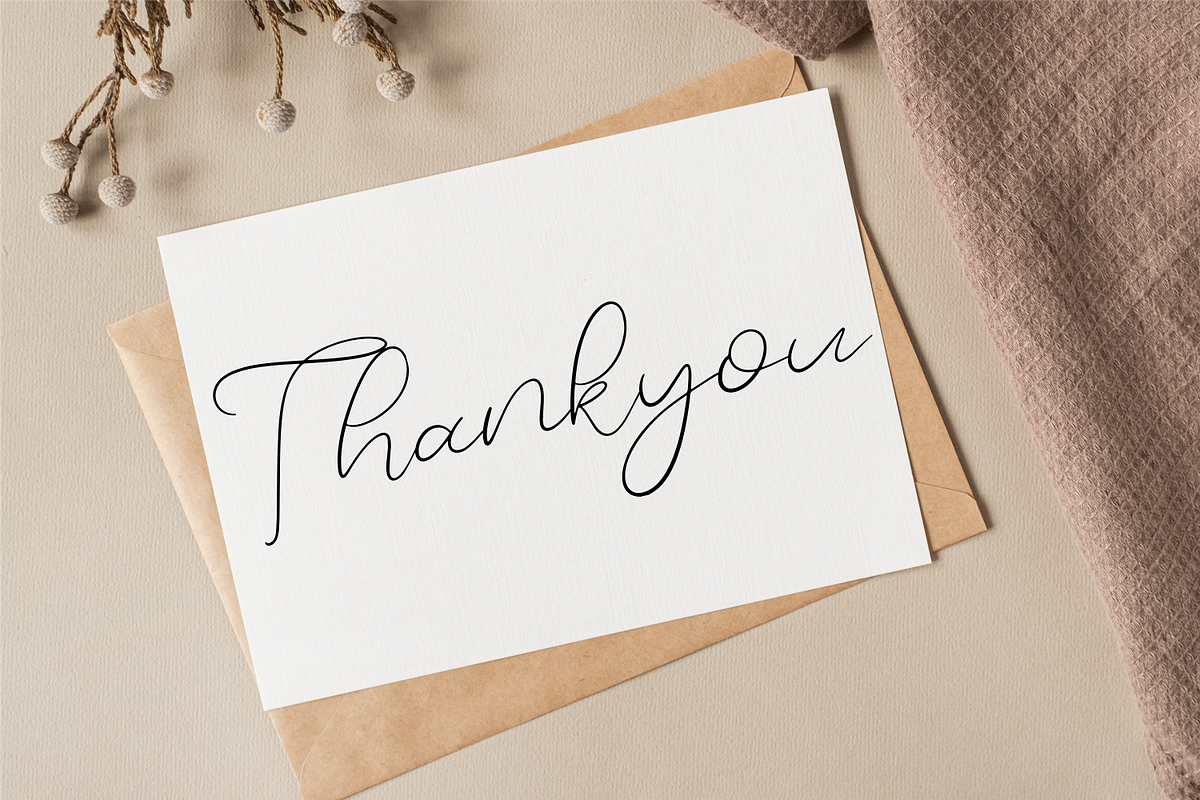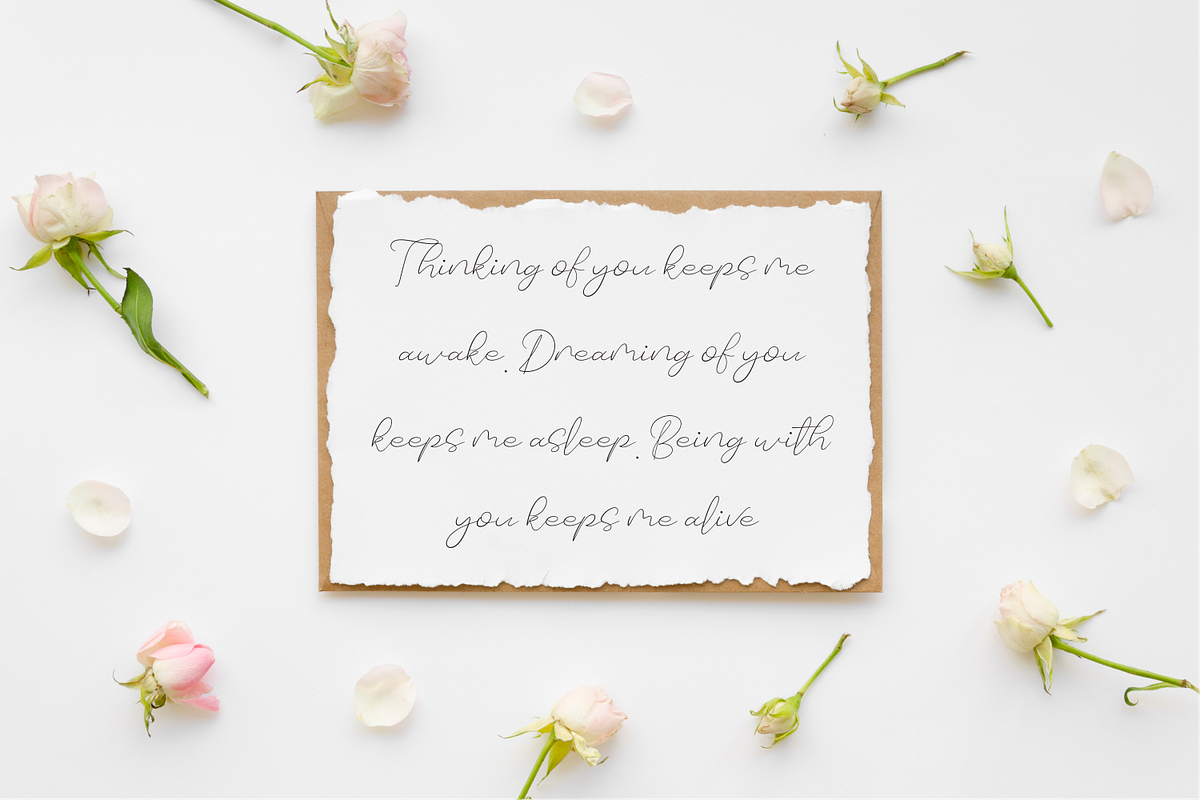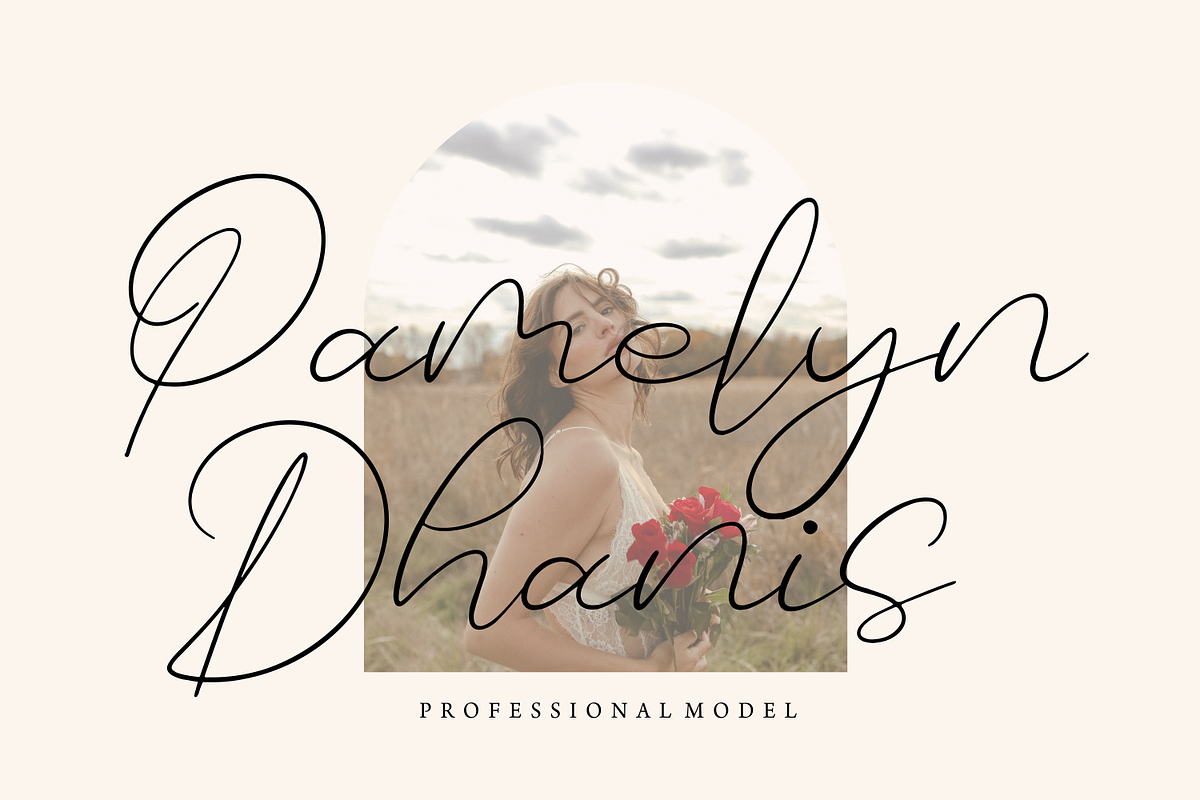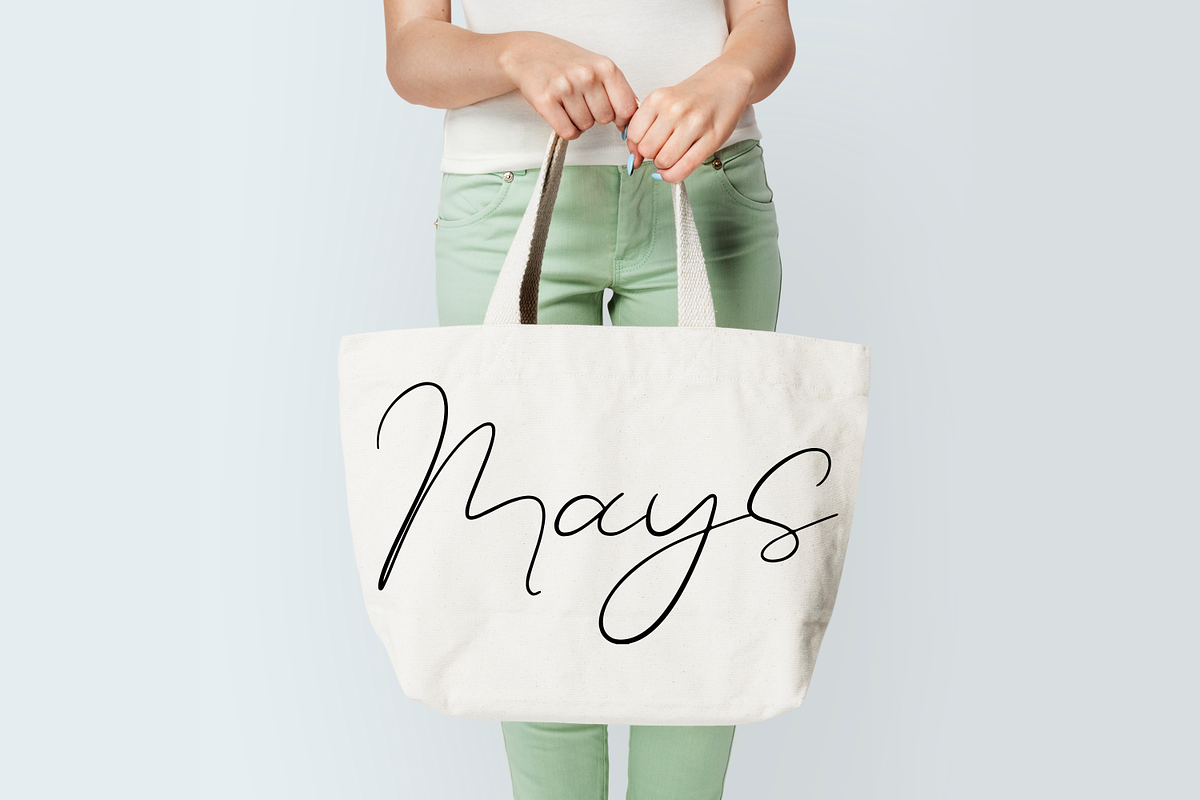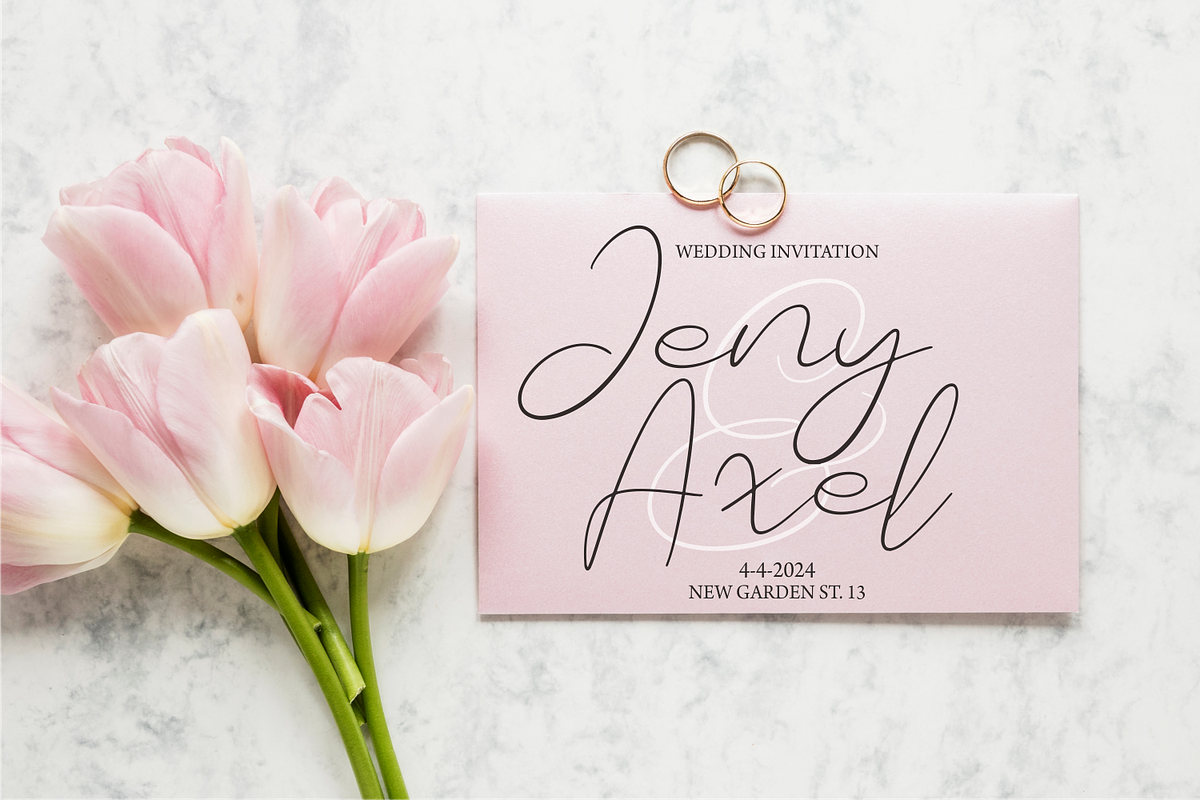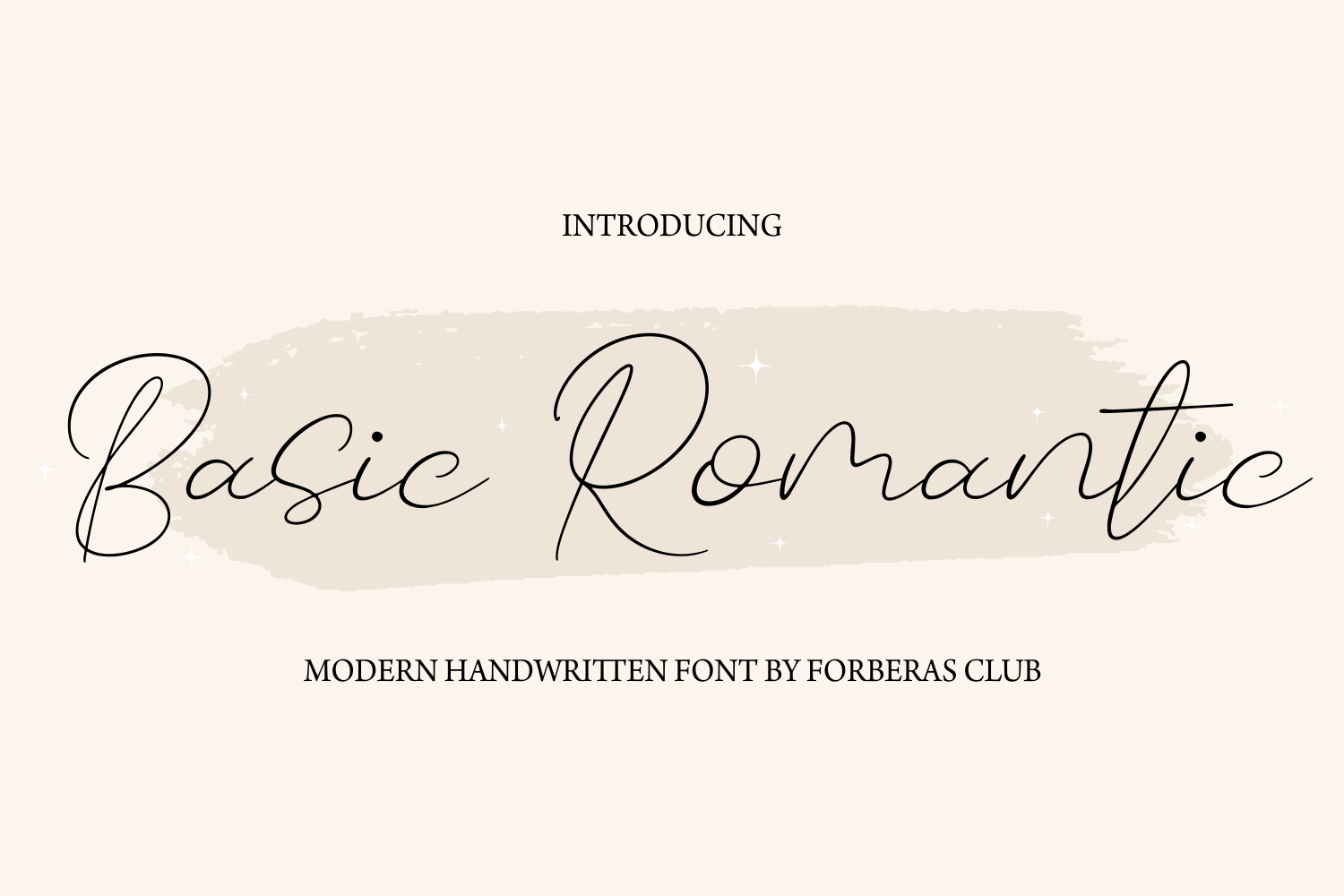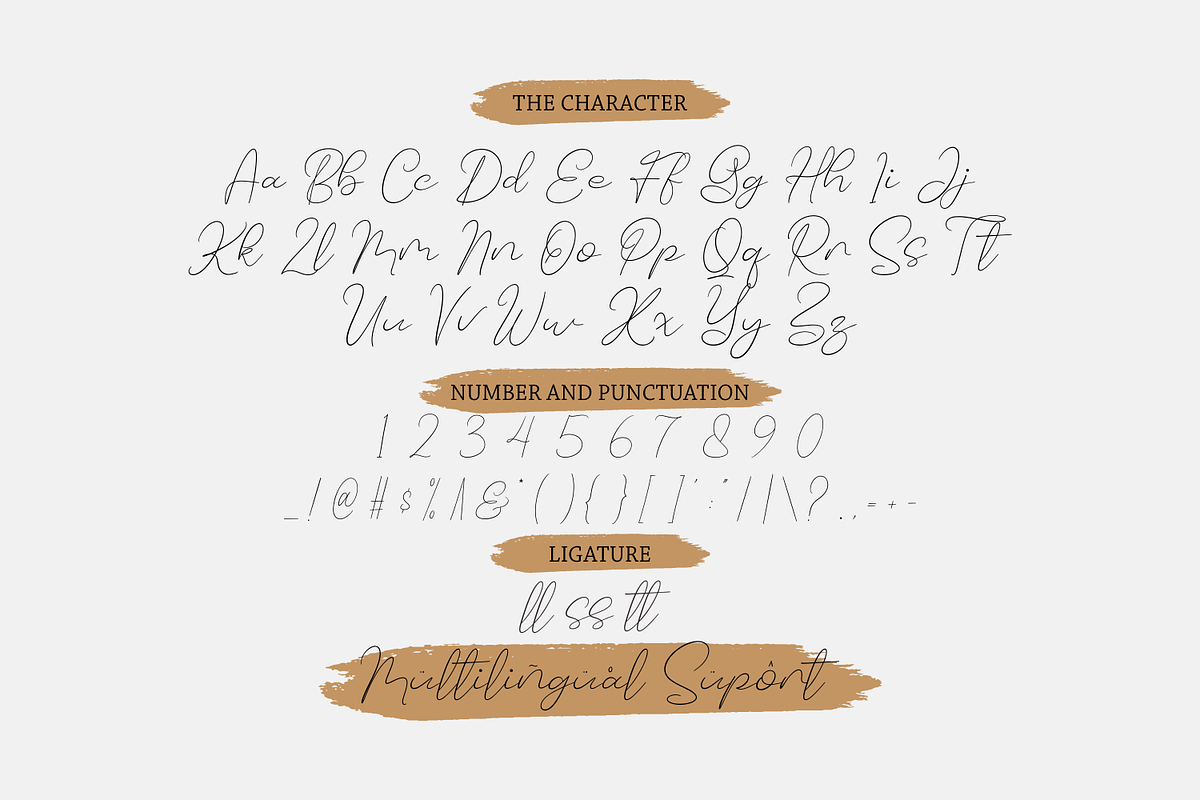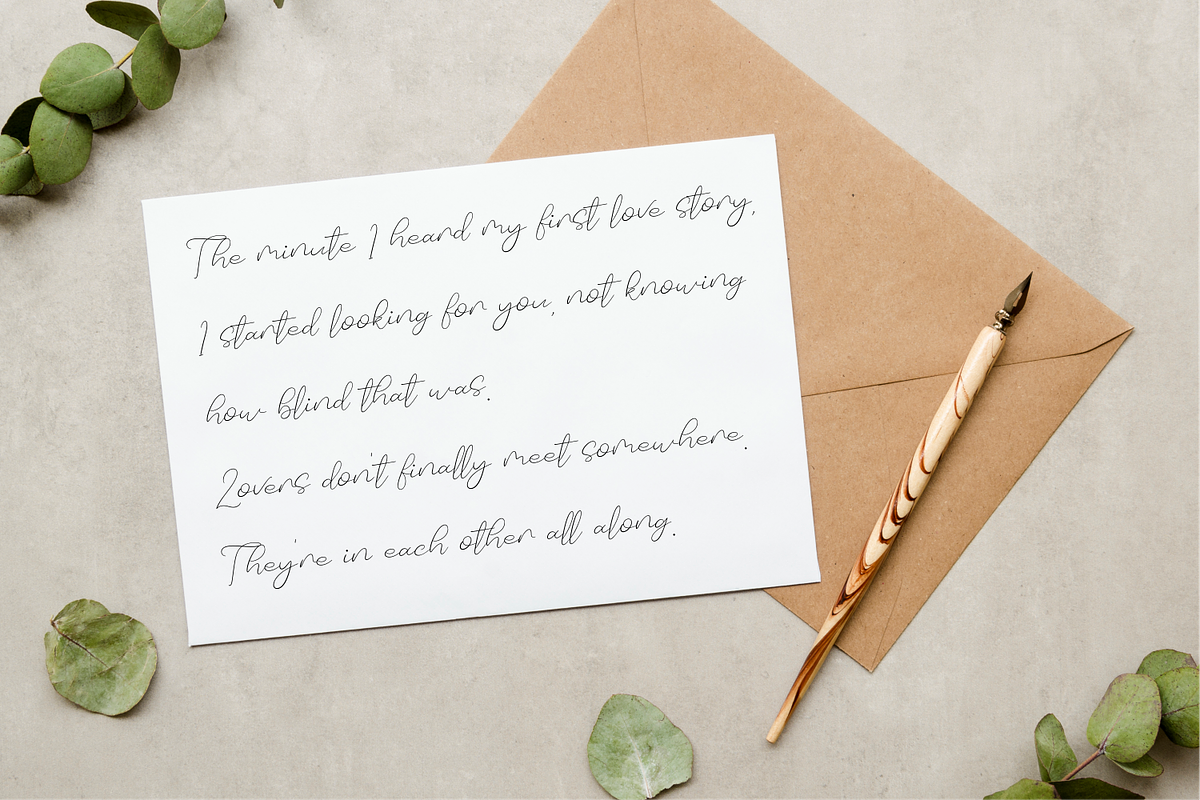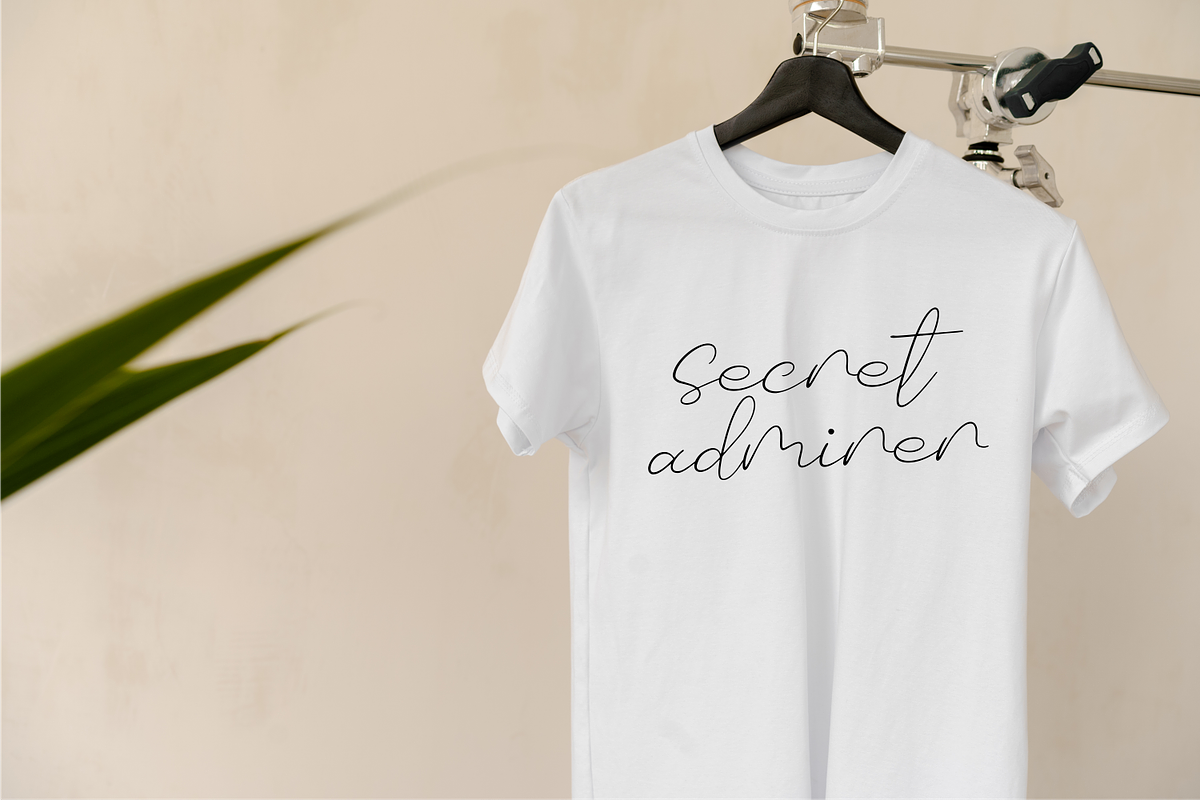
Basic Romantic | Modern Script Font
Introducing Basic Romantic by Forberas Club
A fancy and elegant handcrafted font that create to impress your audience and make your branding shine.
Make your projects dance with this elegant and wonderful font wherever you use it. Use it for your headings, logos, ads, printed quotes, packaging, and even your website or social media branding.
every letter has unique and beautiful touch, which will make your design come alive!